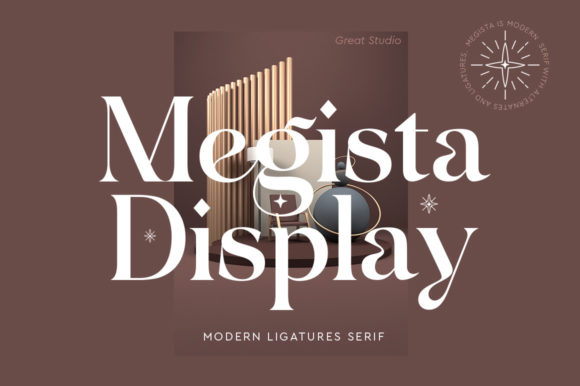
Welcome to the world of Megista, a font family that will redefine your design experiences. Step into a realm of elegance and sophistication, where your words will dance with grace and your ideas will shine with brilliance. Megista is not just a font; it's an art form, a testament to the power of typography.
With its timeless serif design, Megista exudes an aura of classic beauty. Its clean, crisp lines and graceful curves evoke a sense of nostalgia, harkening back to an era of literary masterpieces and artistic brilliance. Yet, Megista is not trapped in the past; it's a font that thrives in the modern world, adapting effortlessly to contemporary aesthetics and digital landscapes.
As a PUA-encoded font, Megista grants you the freedom to unleash your creativity. Access a treasure trove of glyphs and swashes with ease, adding an extra layer of charm and personality to your projects. Experiment with different combinations, let your imagination soar, and watch as Megista transforms your designs into captivating works of art.
Confidently incorporate Megista into your design projects and witness the transformation. Whether you're crafting logos, designing brochures, creating social media posts, or embarking on web development endeavors, Megista will elevate your work to new heights. Its versatility knows no bounds; it harmonizes effortlessly with a wide range of design styles, from classic and traditional to modern and minimalist.
Megista is more than just a font; it's an investment in your creative journey. It's a gateway to a world where your ideas take center stage, where your words resonate with power and elegance. Embrace Megista today and embark on a design adventure that will leave you captivated and inspired.